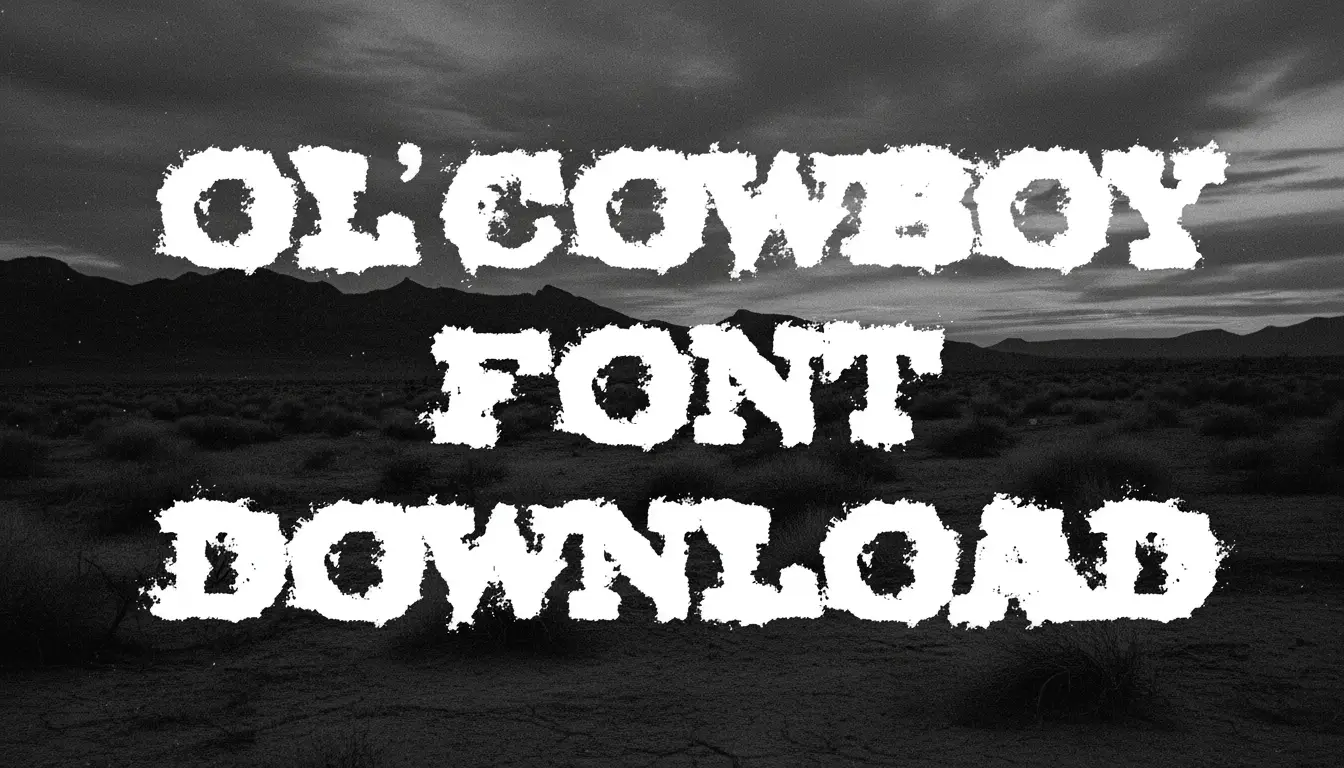
Ol Cowboy Font
Ol Cowboy
Ol Cowboy Font Details
- Designer: Kevin Christopher
- Font styles: 1 (ExtraBold)
- Glyphs: 70
What You Can Type With Ol Cowboy
With complete upper and lowercase letters and all ten digits, Ol Cowboy is ready for real wording, not just a single headline. Punctuation is limited, so look at the character map if you need a specific symbol. It doesn't include accented letters such as é or ñ, which makes it an English-only font.
Where Ol Cowboy Works Best
Designers usually reach for fonts like Ol Cowboy when they're making posters, logos and eye-catching headlines. Use it for one standout word or headline and let simpler fonts handle the rest.
Does Ol Cowboy support accented letters?
No. Ol Cowboy has no accented letters such as é, ñ or ü, so it's best for English text.